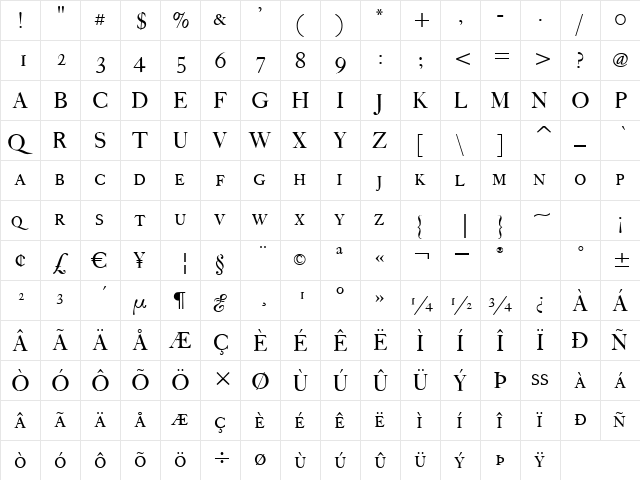
FCaslonFortyTwoSCITC TT Roman
| Foundry | International Typeface Corporation |
| Designer | Justin Howes |
Design Context for FCaslonFortyTwoSCITC TT Typeface
FCaslonFortyTwoSCITC TT offers clean, dependable letterforms without strong stylistic allegiance, making it a practical choice for designers who need flexibility.